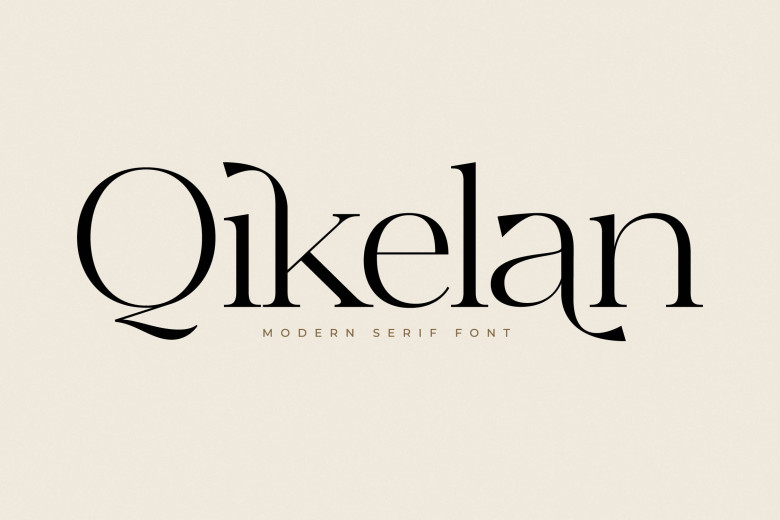
Qikelan Font
Qikelan is an elegant serif font that effortlessly blends traditional elegance and contemporary aesthetics. With sophisticated letterforms that lend their luxurious letterforms to design projects, Qikelan adds sophistication to design projects of any kind. Perfect for timeless and luxurious projects; Qikelan adds modern aesthetics when used typographically for modern projects.
Qikelan Serif Font